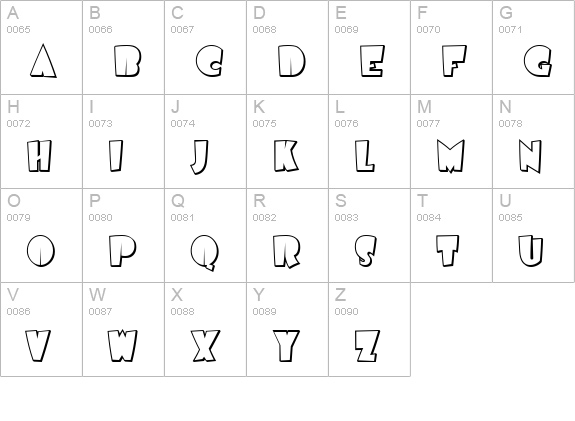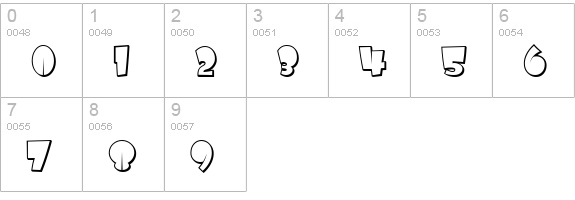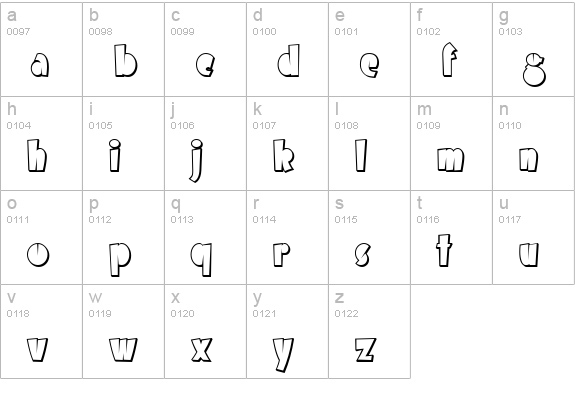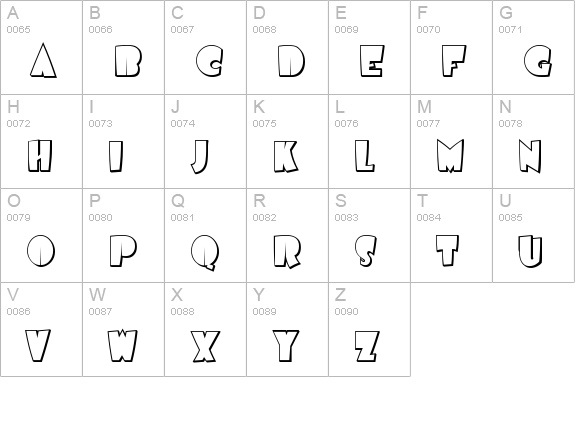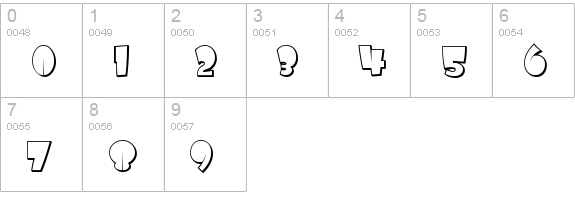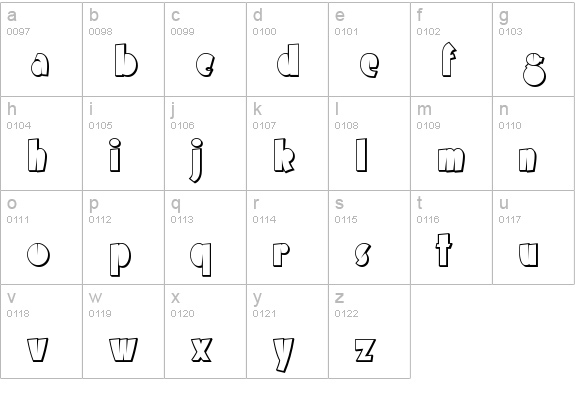
TR Airmole Shaded Font Details
TR Airmole Shaded is a whimsical and charming font that adds a playful touch to any design project. Its rounded shapes and unique shading create a sense of movement and energy, making it perfect for projects that require a fun and lighthearted feel. This font is versatile and works well for a variety of design applications, from logos and branding to posters and invitations. The best part? TR Airmole Shaded is available for free download at FontsMarket.com. This means you can easily add this delightful font to your collection without having to spend a dime. So go ahead and give your designs a touch of whimsy with TR Airmole Shaded - the free font that's sure to bring a smile to your audience's faces.